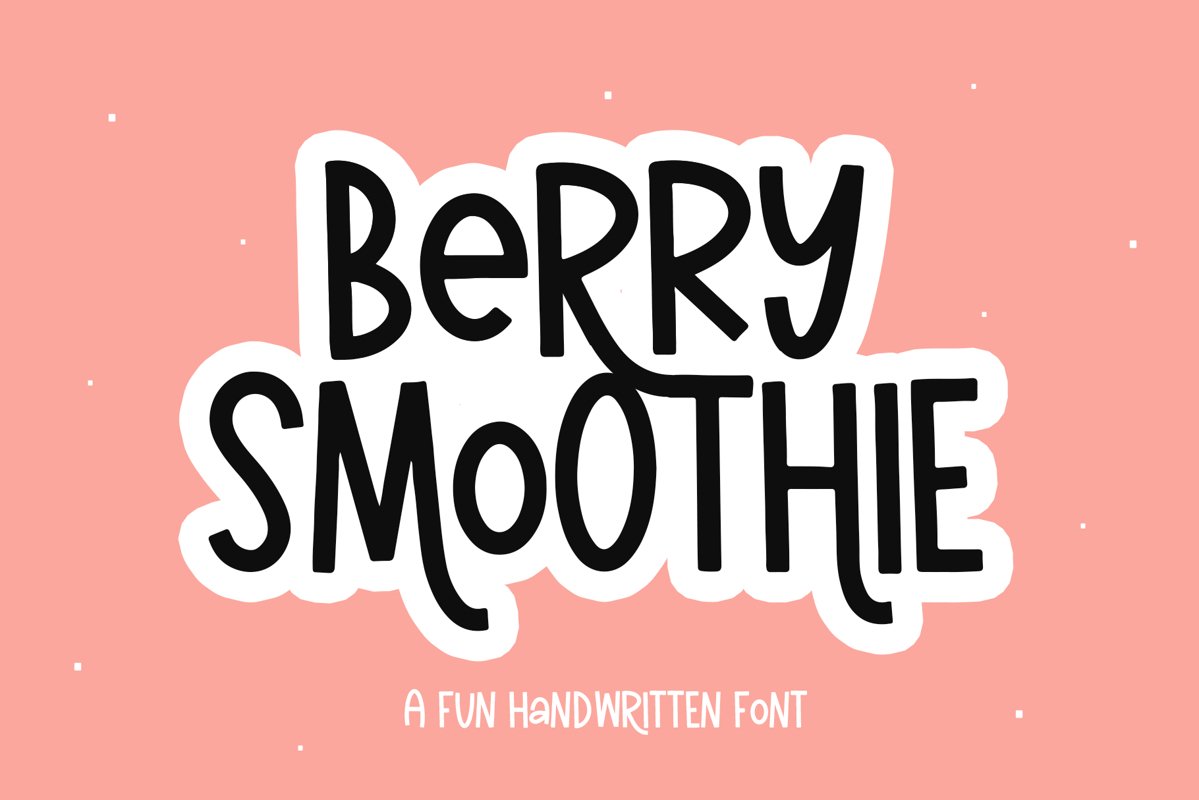
Berry Smoothie - A Fun Handwritten Font with Alternates
Berry Smoothie is a bold handwritten font!
This is an all caps font.
This font is perfect for quotes, shirt designs, websites, branding, children's designs, svg designs, blogs, logos, invitations and more!
Most accent characters included.